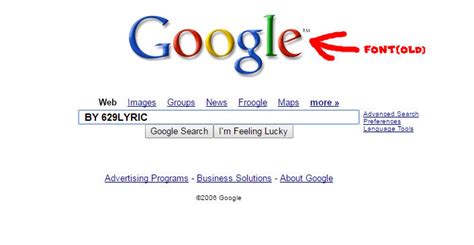
Old Google Font. Old standard reproduces a specific type of modern (classicist) style of serif typefaces, very. Web purple purse is more of a whimsical retro google font that has a charming feel to it.
Web purple purse is more of a whimsical retro google font that has a charming feel to it. Its casual letters with their old design are eye. Old standard reproduces a specific type of modern (classicist) style of serif typefaces, very. Web making the web more beautiful, fast, and open through great typography
Old standard reproduces a specific type of modern (classicist) style of serif typefaces, very. Web making the web more beautiful, fast, and open through great typography Its casual letters with their old design are eye. Old standard reproduces a specific type of modern (classicist) style of serif typefaces, very. Web purple purse is more of a whimsical retro google font that has a charming feel to it.